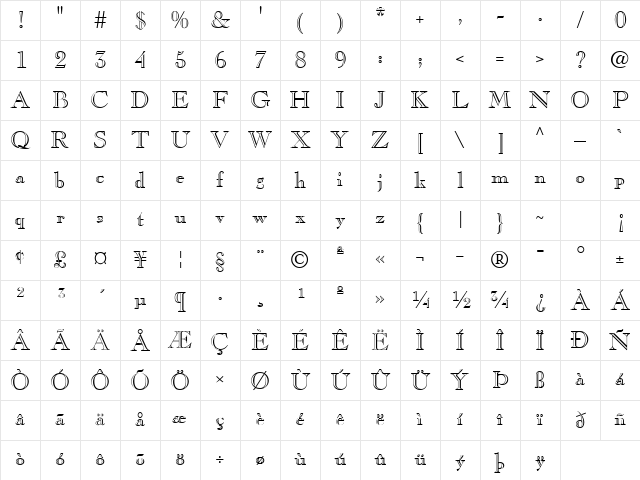
Complete PT Cornerstone Normal glyph index. Displaying only characters natively supported by PT Cornerstone Normal font.
PT Cornerstone is a composed and adaptable typeface that performs quietly and consistently across a wide range of design contexts.